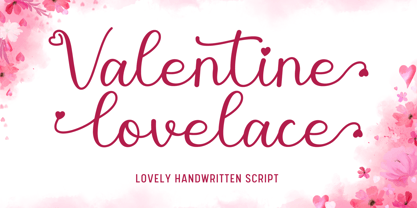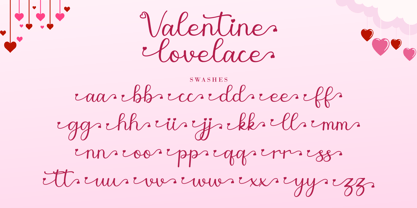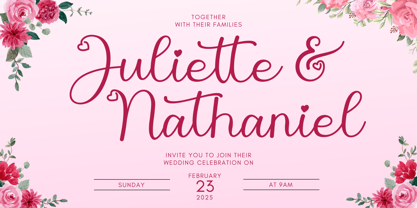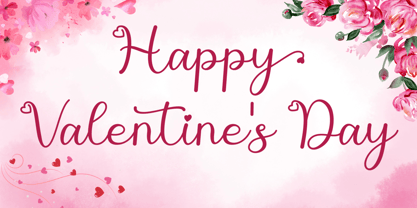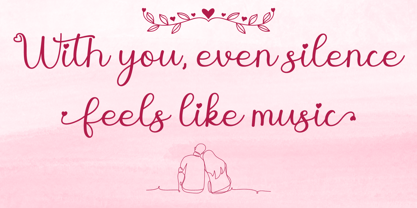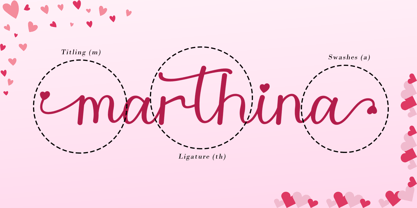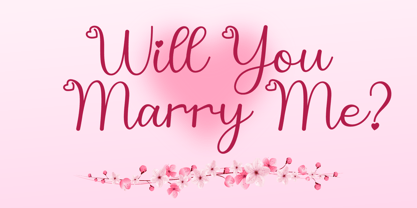
Valentine Lovelace
by AEN Creative Studio
The Valentine Lovelace Font Family was designed by Agung Eko Nugroho and published by AEN Creative Studio. Valentine Lovelace contains 2 styles and family package options. More about this family
Introducing Valentine Lovelace, a beautifully crafted handwritten script font that captures the essence of romance and elegance. Designed with smooth curves and delicate strokes, this font feels like a love letter written by hand, making it an excellent choice for wedding stationery, digital papers, and romantic graphics. Its versatile style pairs beautifully with soft pastels, floral motifs, and vintage aesthetics, ensuring your projects resonate with heartfelt emotion. Whether you’re designing for personal or professional purposes, Valentine Lovelace adds a signature touch of elegance and warmth.
Designers: Agung Eko Nugroho
Foundry: AEN Creative Studio